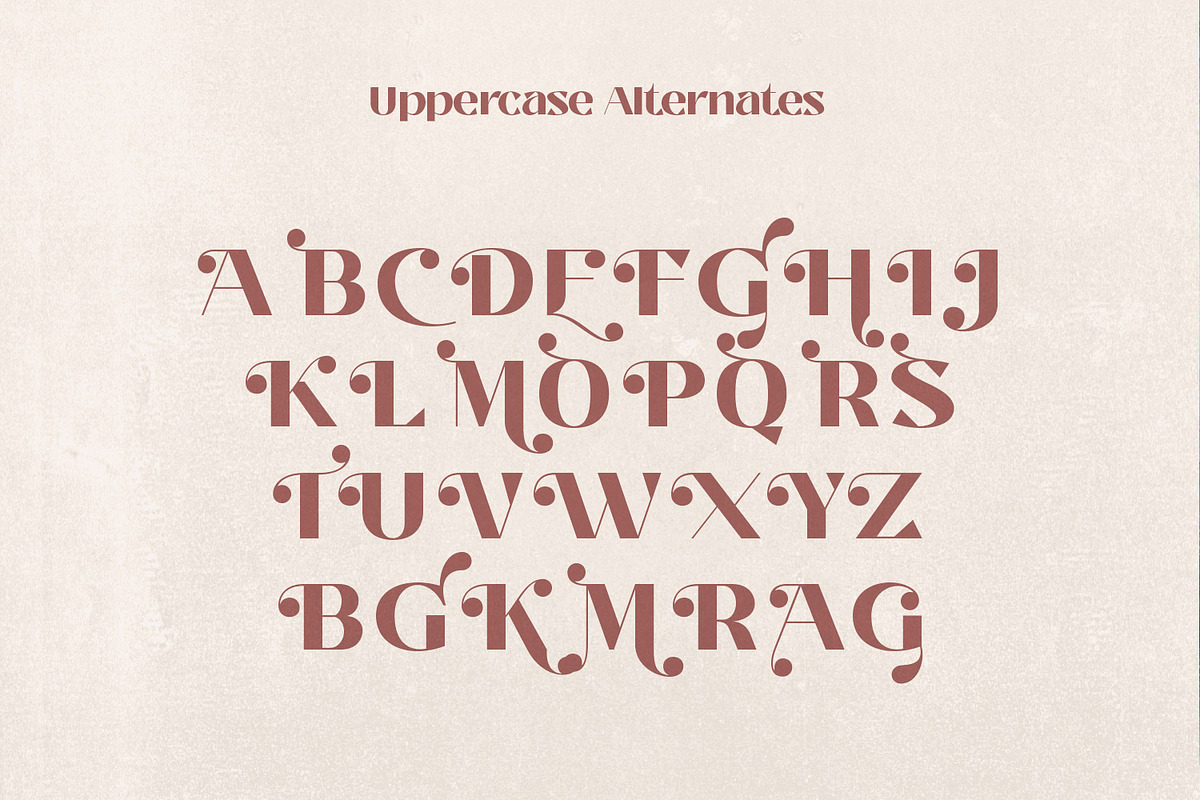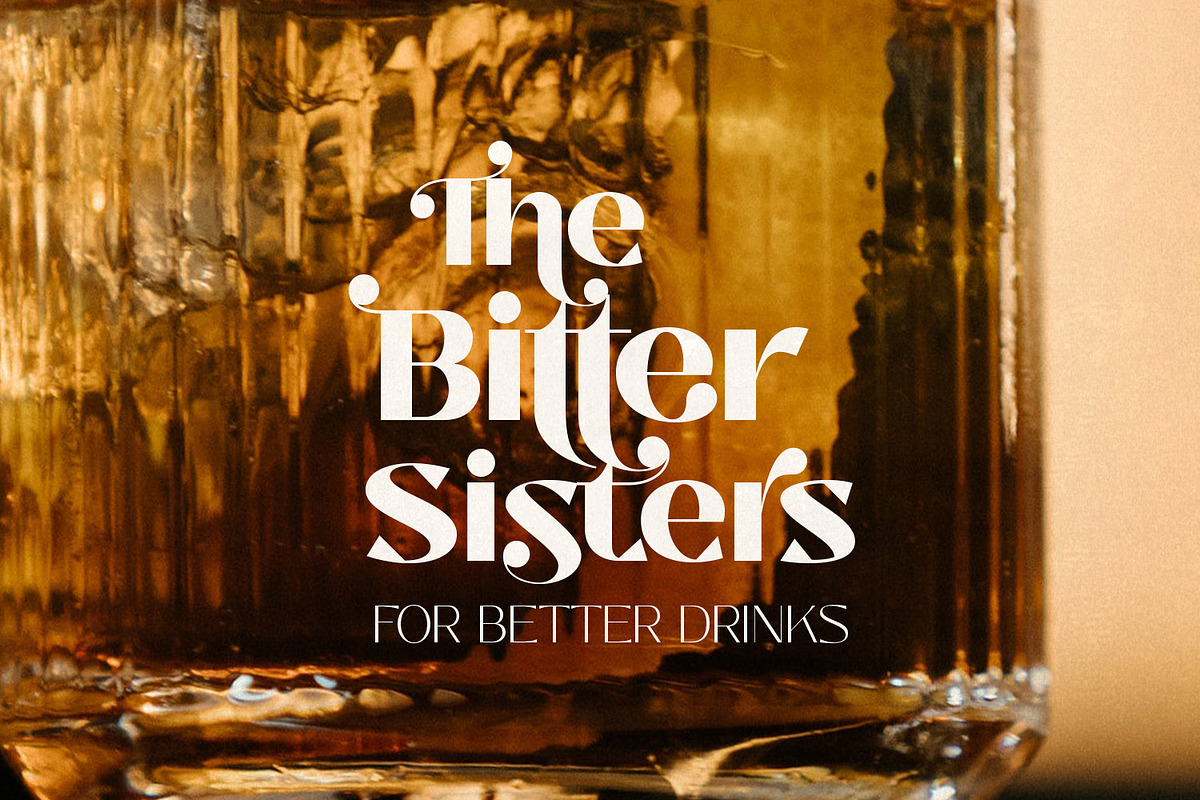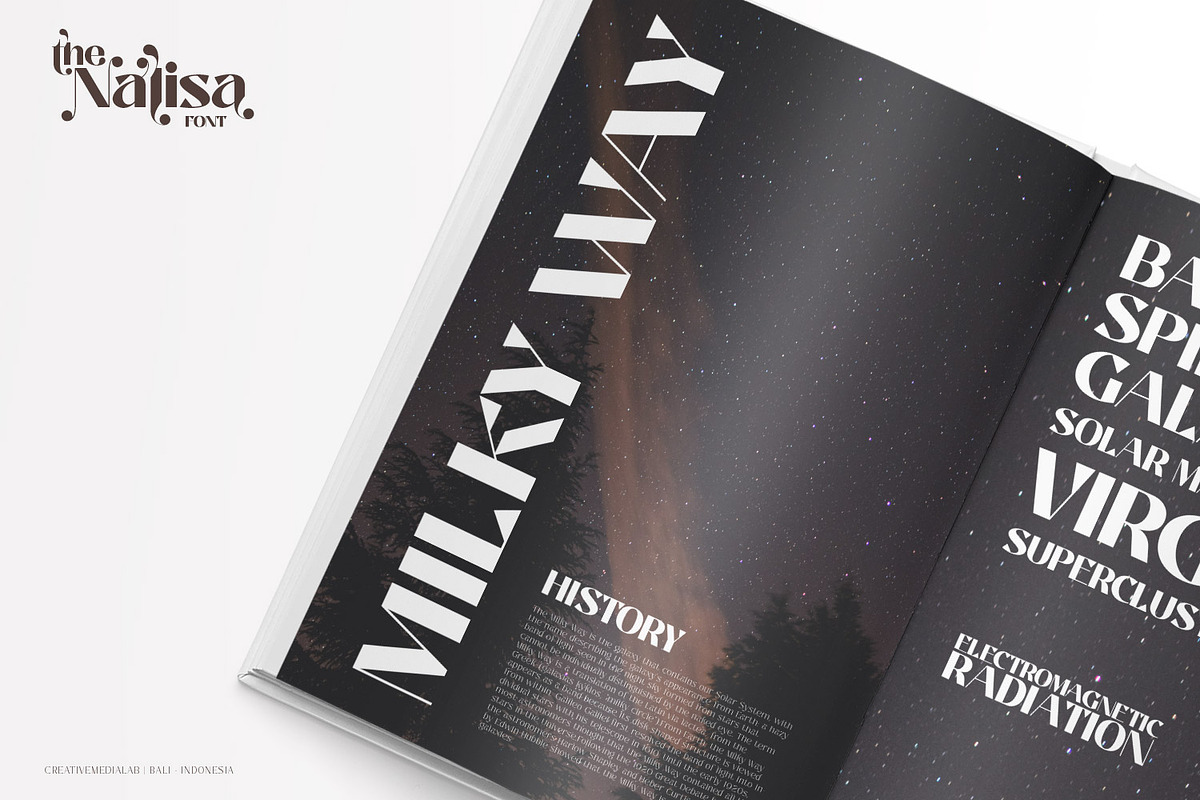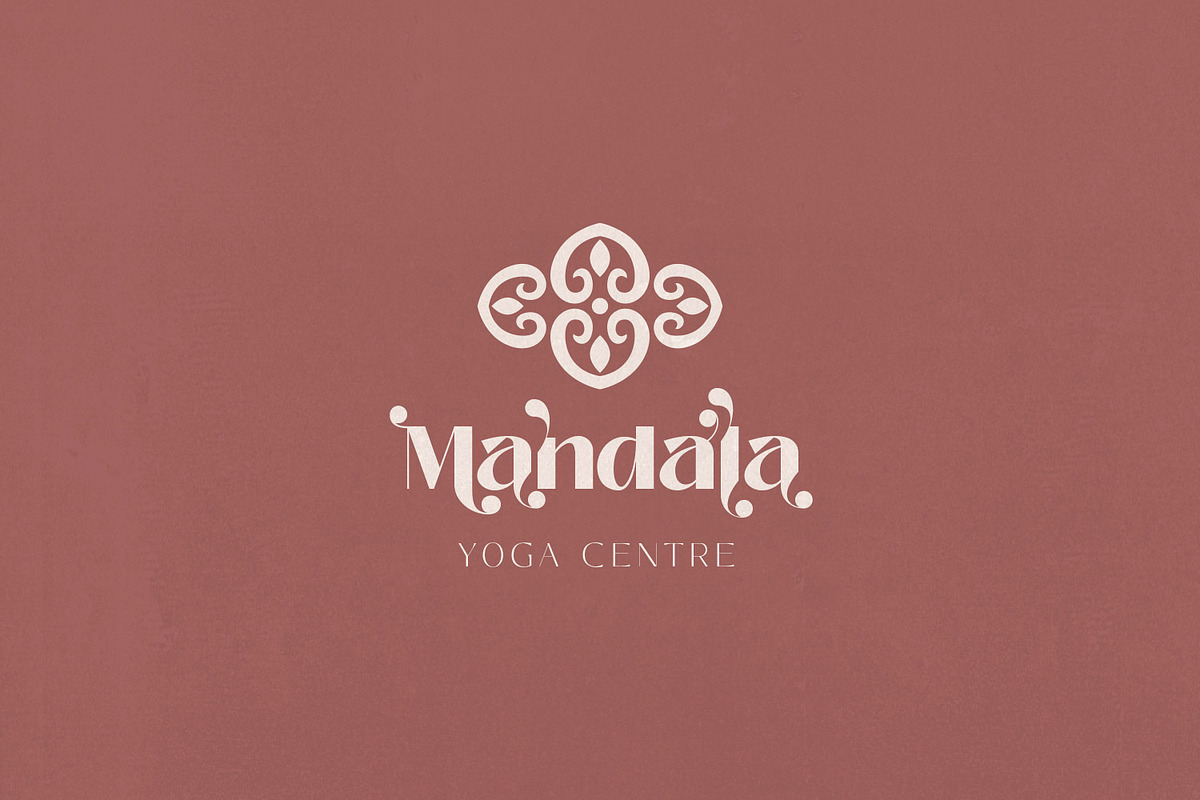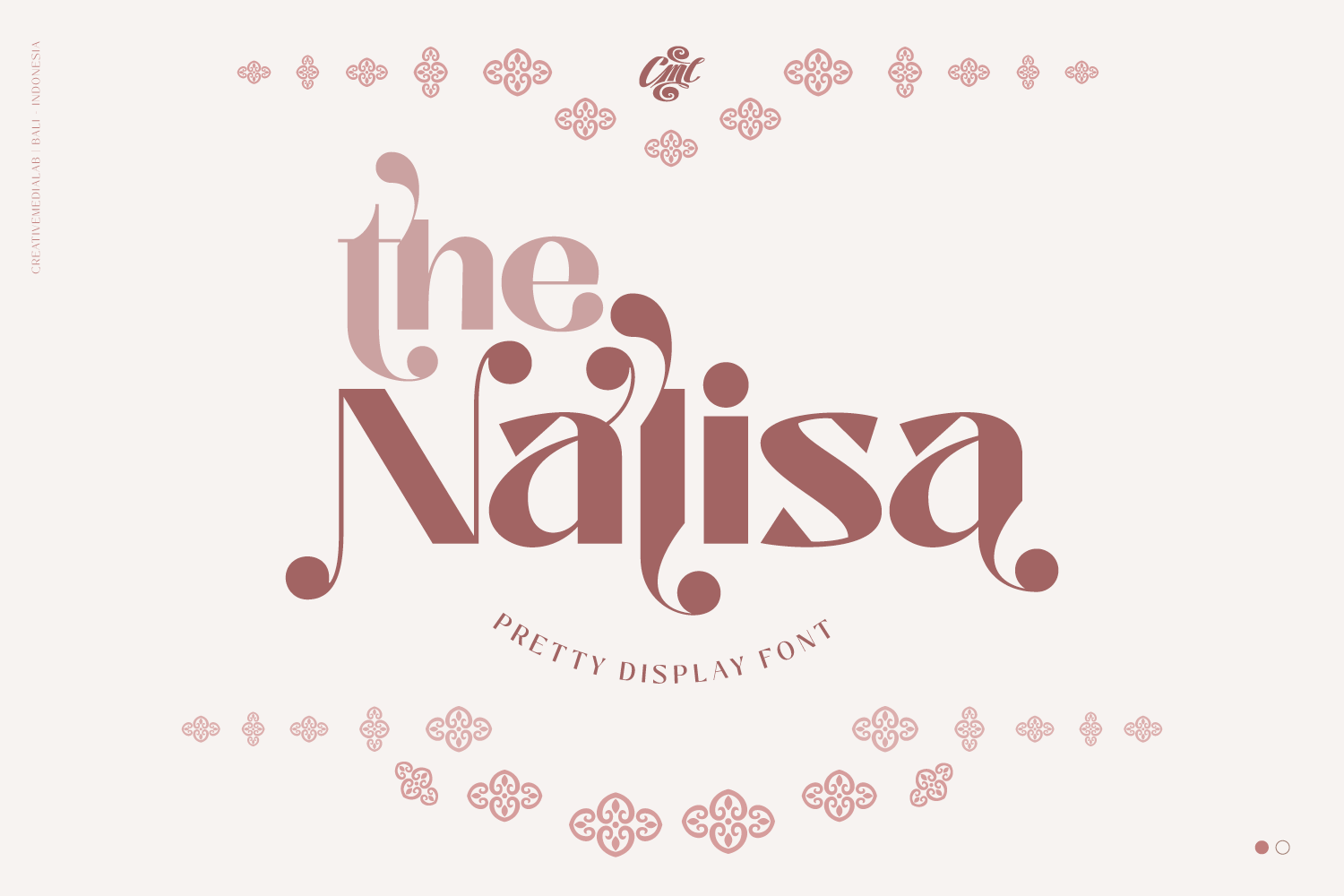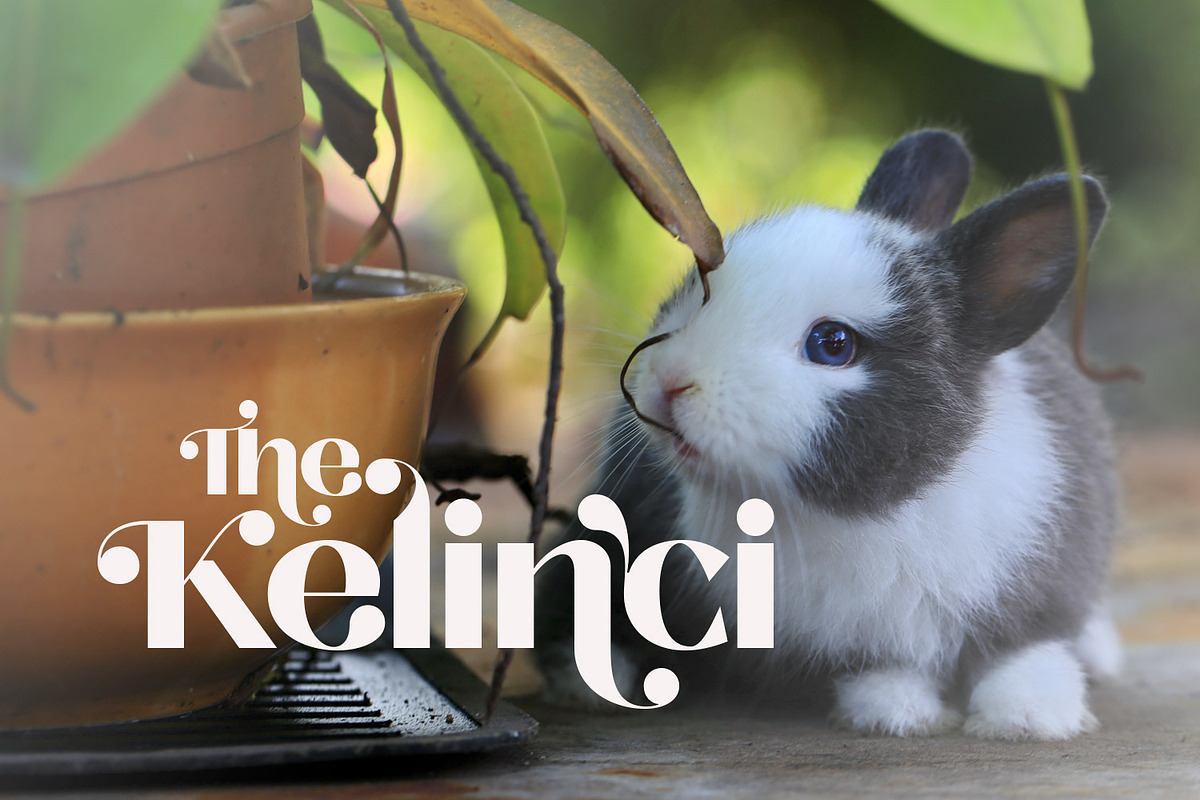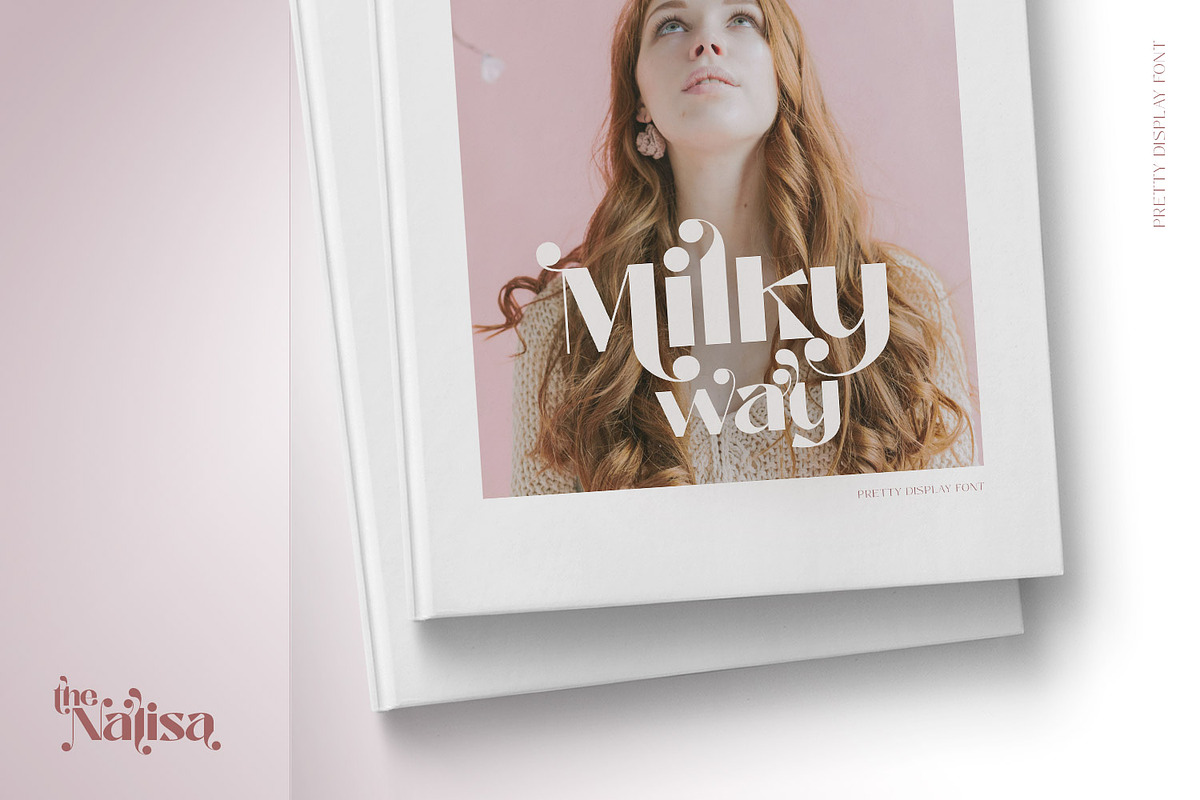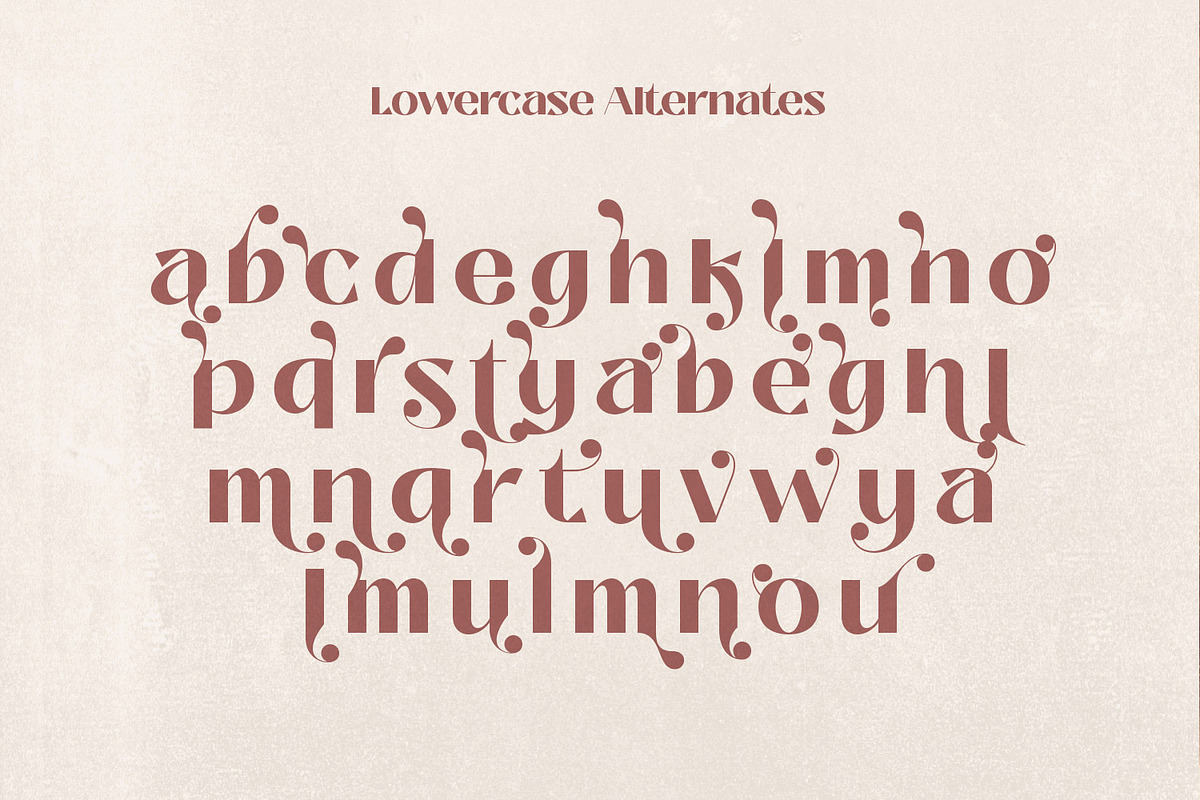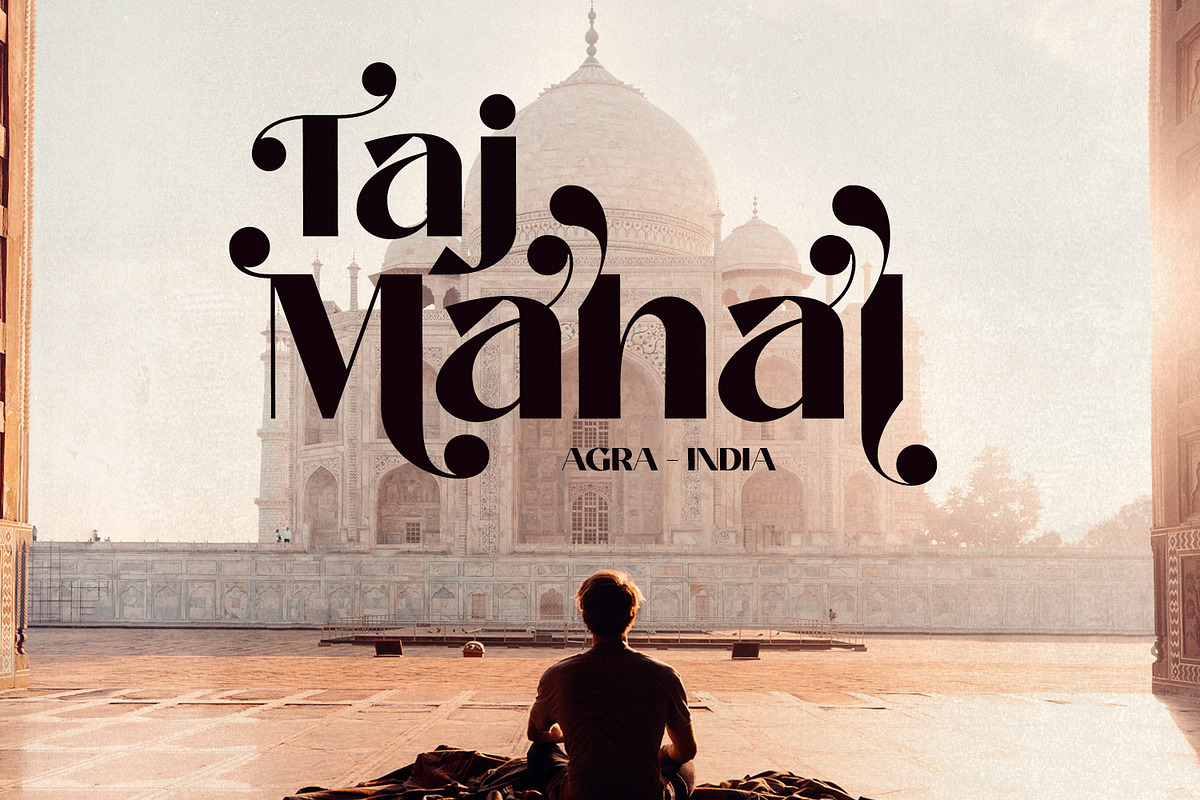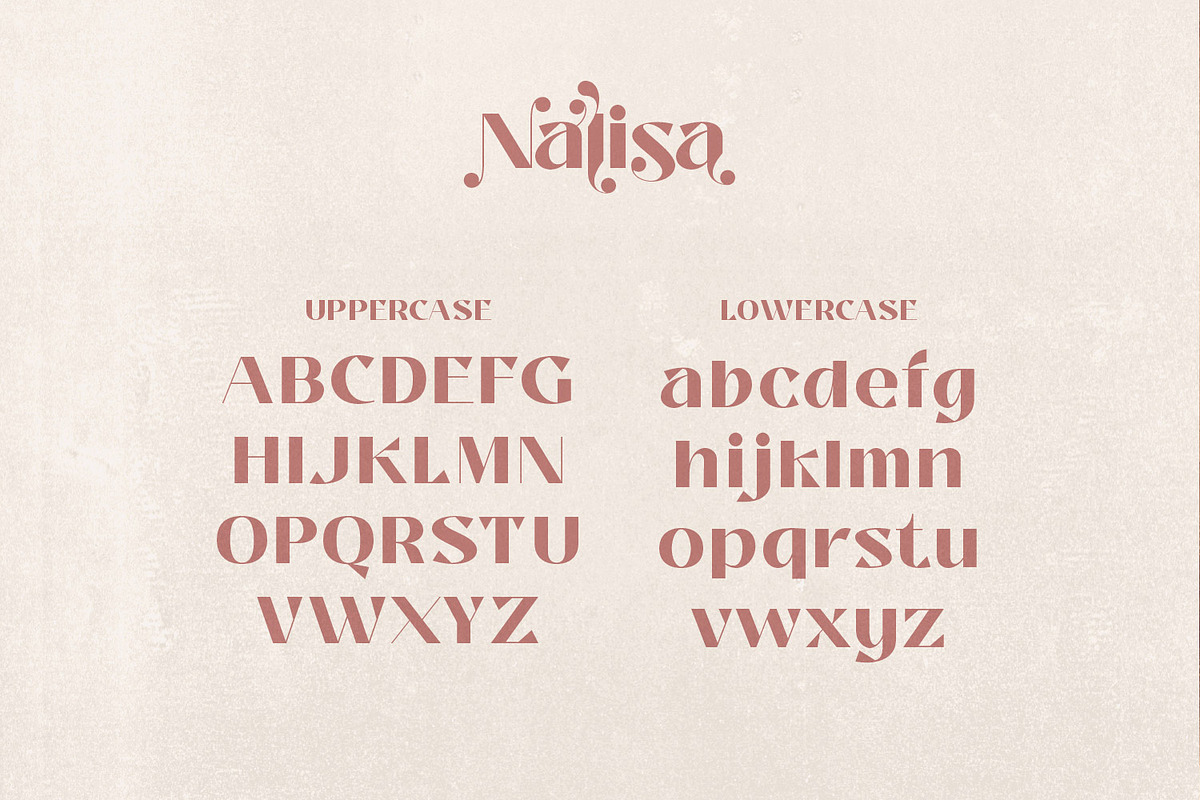
Nalisa Font - Modern beauty font
Nalisa is a modern display font with Romantic vibe, comes with tons of alternates with ball terminals that makes the display looks pretty. Multilingual support, numbers, and currency symbols.
Suitable for use in many design forms, for example, magazines, logos, web design, DIY projects, quotes, packaging, postcards, vintage or retro look badges, old classic music, the 60s, 70s, 80s era, stickers, label, wedding theme and many more. We recommend using Adobe Programs.